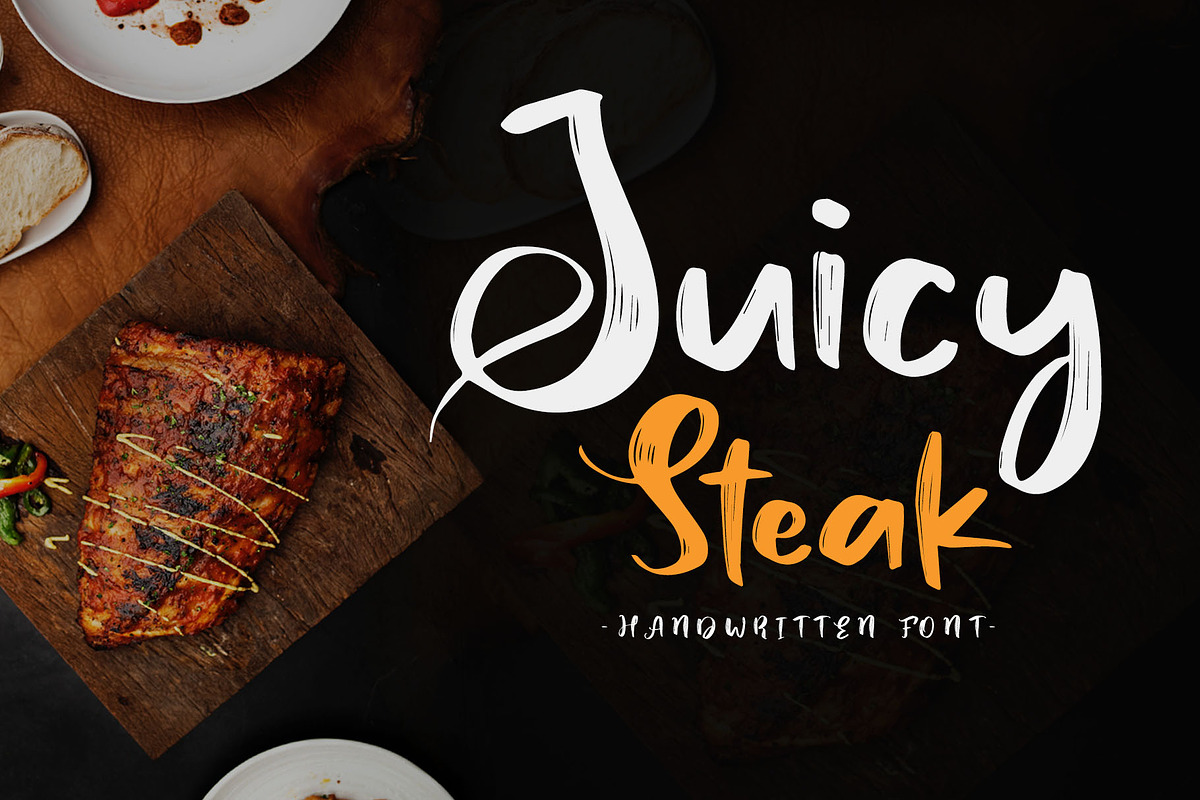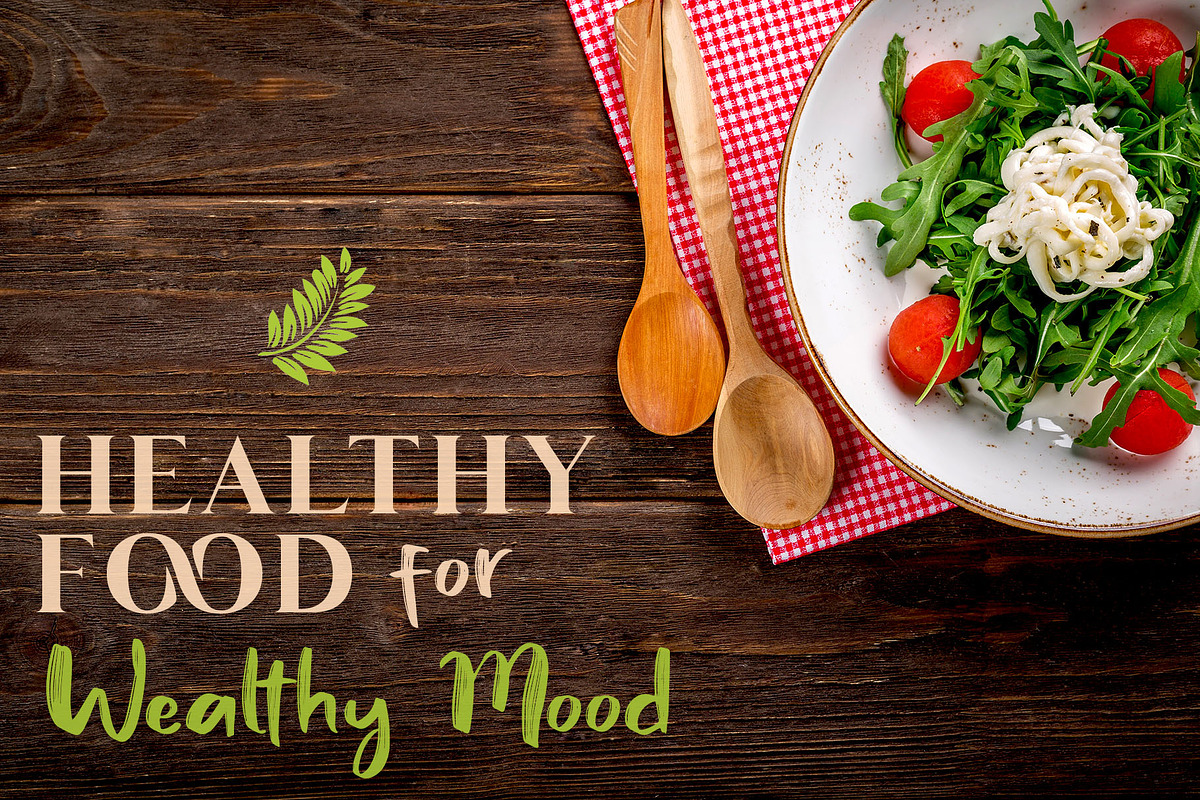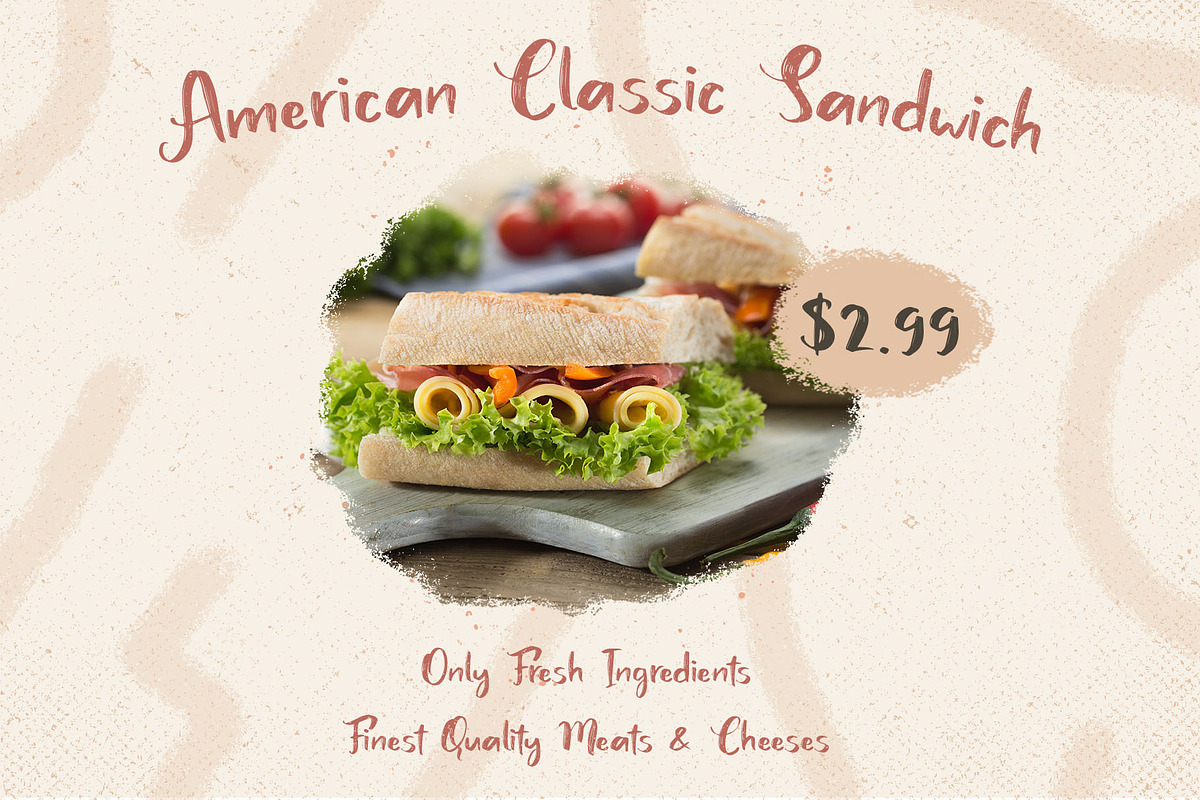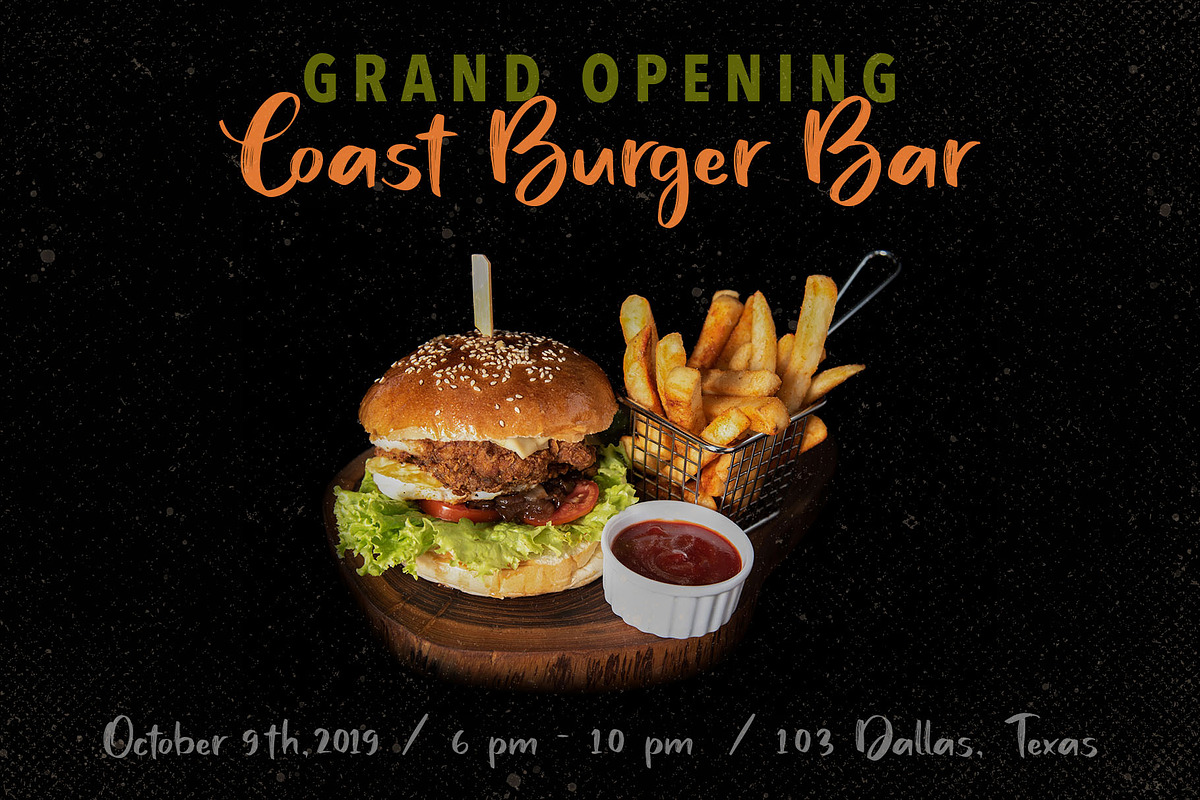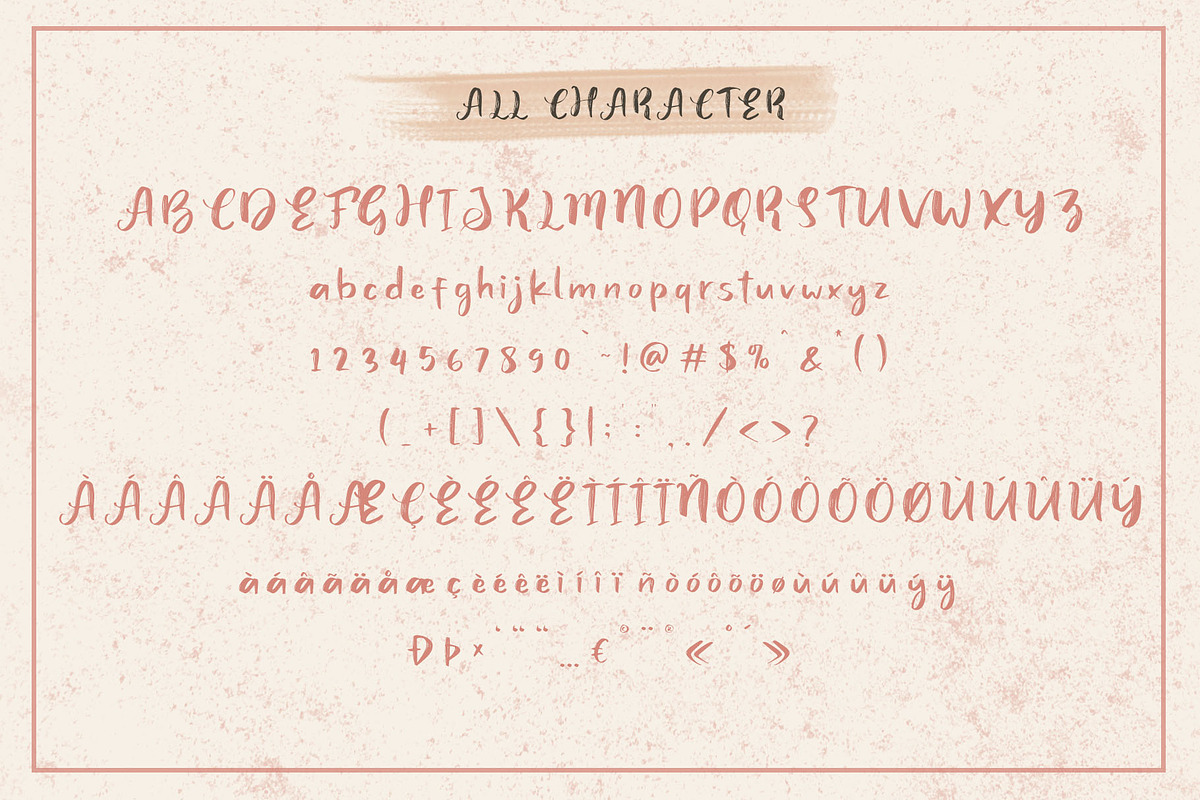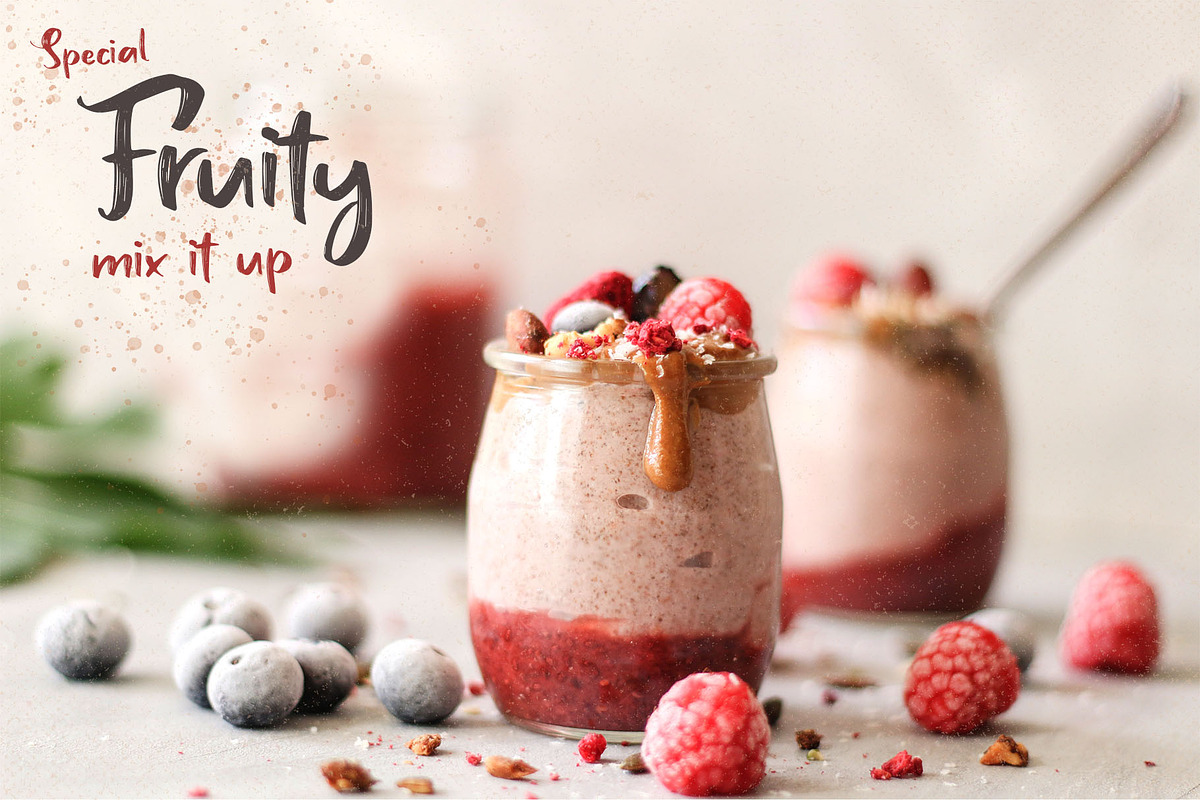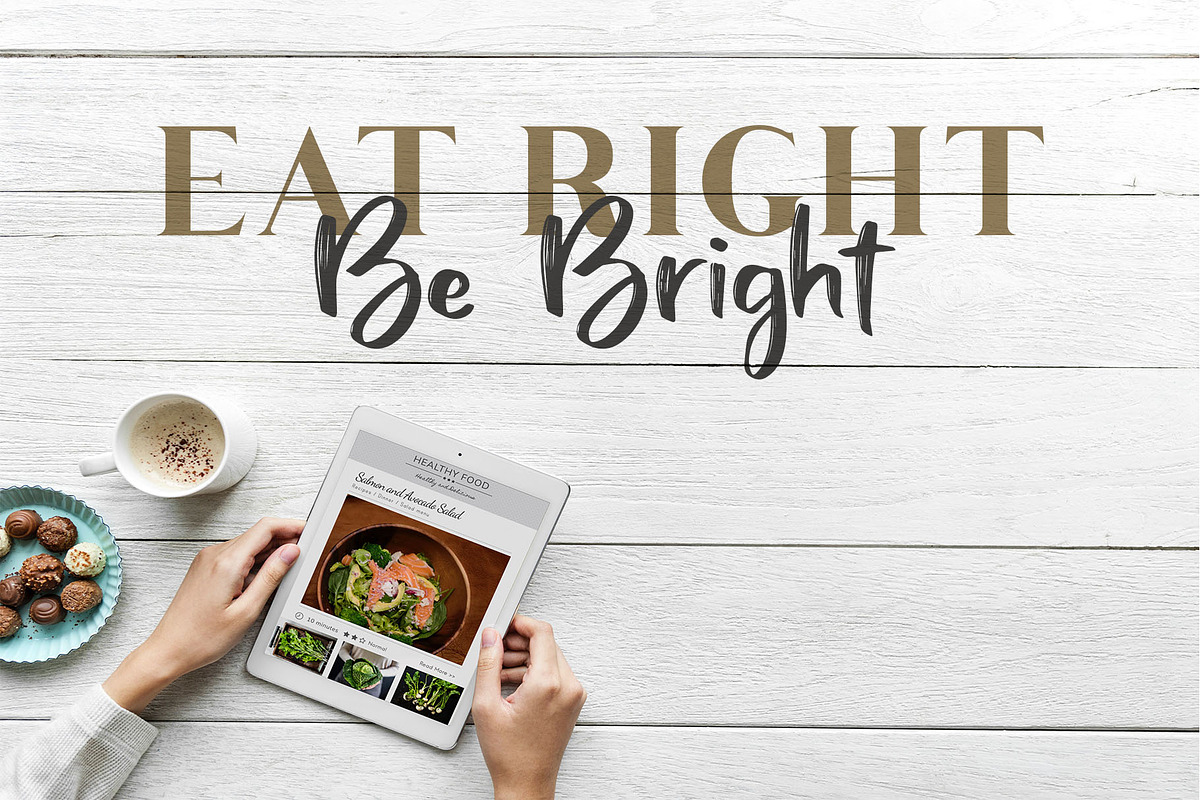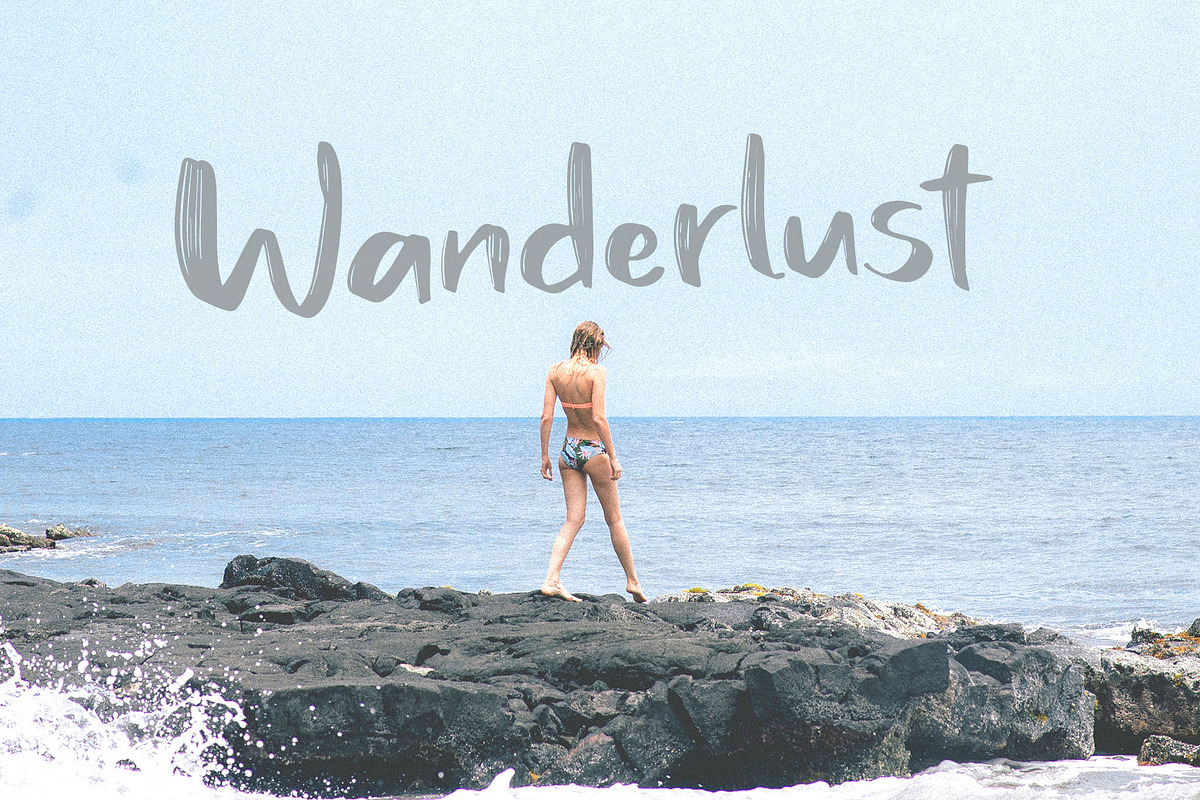
Juicy Steak - Handwritten Font
Juicy Steak - Handwritten Font is an handwritten script font based on the expression of real handwriting, lets you transform type into an exciting and beautiful piece of work. The irregular, hand-lettered look adds a real human touch to things and comes along with a lot of loving details. Combine all font-styles the way you want, add some ornamental swashes or banners and even a single word becomes magnificent.
Juicy Steak - Handwritten Font has lots of alternates that gives you possibility to build your text almost like handwriting with all the charming imperfections and variations that a real handwriting has. Bravely will work perfectly for fashion, e-commerce brands, trend blogs, wedding boutiques or any business that wants to appear upscale and chic.
Juicy Steak - Handwritten Font by Craft Supply Co. fits naturally into Branding, posters, packaging, typography.